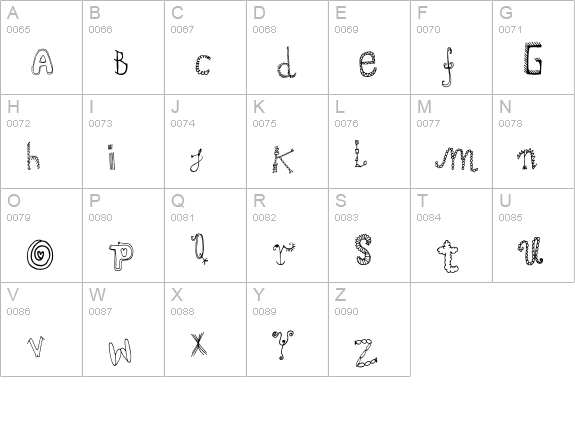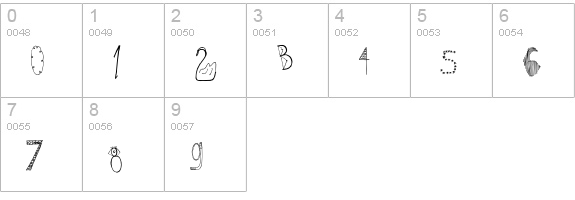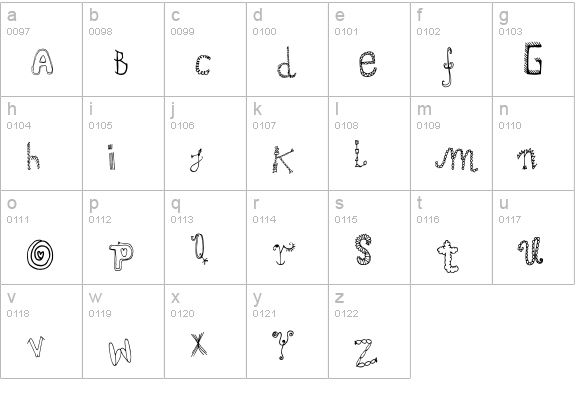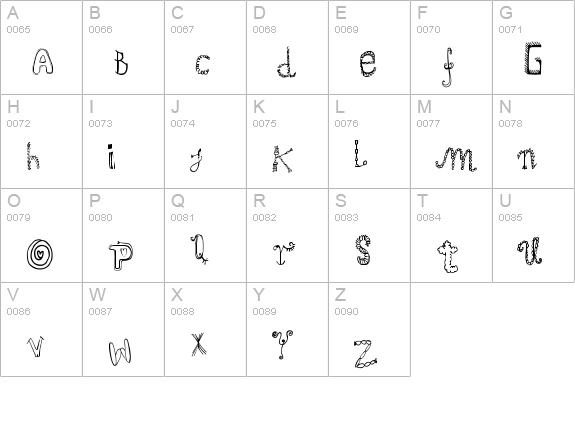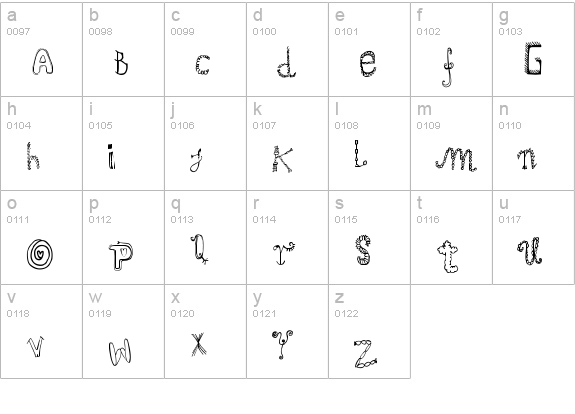
Mrs Doodle Font Details
Mrs Doodle font is a whimsical and playful typeface that exudes charm and creativity. With its hand-drawn style and unique character shapes, this font is perfect for adding a touch of fun to your designs. Whether you're working on invitations, greeting cards, posters, or any other project that calls for a touch of whimsy, Mrs Doodle font is sure to make a statement. The best part? Mrs Doodle font is available for free download at FontsMarket.com. Simply visit the website and start using this delightful font in your projects right away. Don't miss out on the opportunity to add a touch of fun and creativity to your designs with Mrs Doodle font – download it for free today!